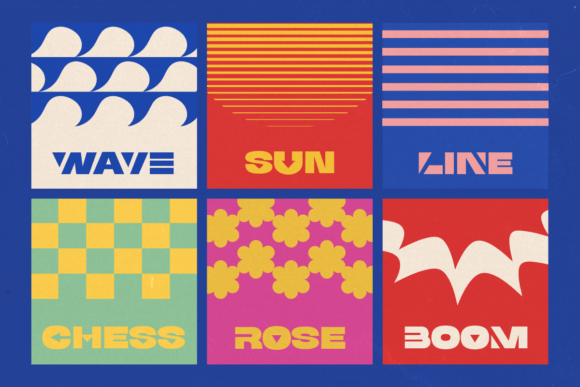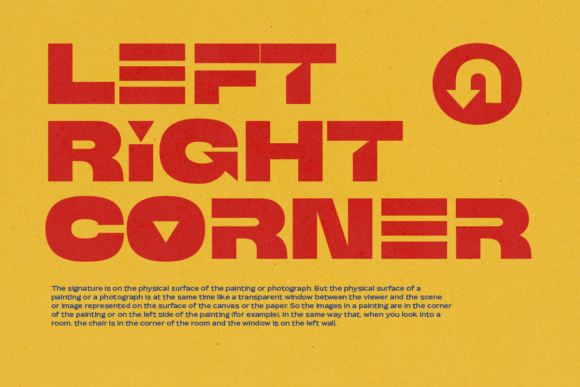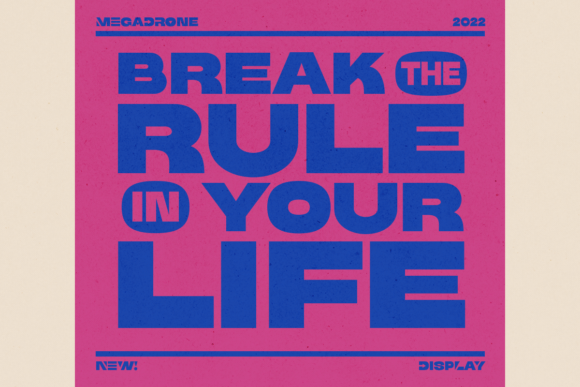
Introduction to Mega Drone Font
As designers, we’ve all been there – staring at a blank canvas, trying to bring our creative vision to life. But sometimes, all it takes is the right font to give our projects that extra oomph. For those moments, I’m excited to introduce you to the Mega Drone Font, a game-changing display font that’s about to revolutionize your creative workflow.
This bold and black font is more than just a pretty face – it’s a design resource that’s packed with unique features and possibilities. From its high-quality, transparent background to its customizable icons and catchwords, the Mega Drone Font is the perfect companion for any creative project that requires a strong and bold vibe.
Whether you’re designing a logo, a marketing campaign, or simply looking for a fresh font to spice up your next project, the Mega Drone Font is a valuable asset that’s sure to impress. And the best part? It’s available for free download, making it an instant hit with designers of all levels.
Mega Drone Font
- High-quality font designed for creative projects, perfect for use in graphic design, digital art, and other visual media.
- Features a transparent background, allowing for seamless integration into various design elements and backgrounds.
- Designed with a futuristic and modern aesthetic, ideal for use in sci-fi, technology, and innovation-themed creative projects.
- Includes a range of characters, including uppercase and lowercase letters, numbers, and punctuation marks, making it a versatile design resource.
Honest Review: Mega Drone Font
Upon closer inspection, I was impressed by the high quality of the font. The design is sleek and modern, making it perfect for futuristic or sci-fi themed projects. The font includes a variety of styles and weights, which can be easily mixed and matched to create a unique look.
Here are some of the things that work well:
- ✨ Clean and modern design
- ✨ High-quality vectors
- ✨ Includes a transparent background option
- ⚠️ Limited character set (only includes uppercase and lowercase letters)
- ⚠️ Not ideal for projects requiring a large amount of text
Overall, I’m impressed with the Mega Drone Font and would definitely recommend it for designers working on a creative project. The high-quality design and transparent background option make it a valuable resource for any design team.
The Mega Drone Font is perfect for a wide range of creative projects, including logos, brochures, presentations, and documents. Its high-quality design and transparent background make it an ideal design resource for any project that requires a unique and eye-catching visual effect.